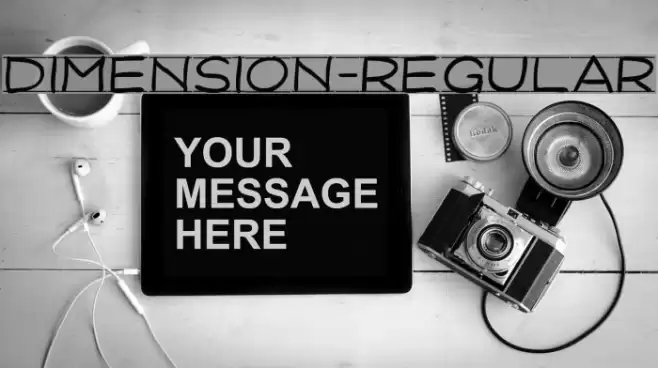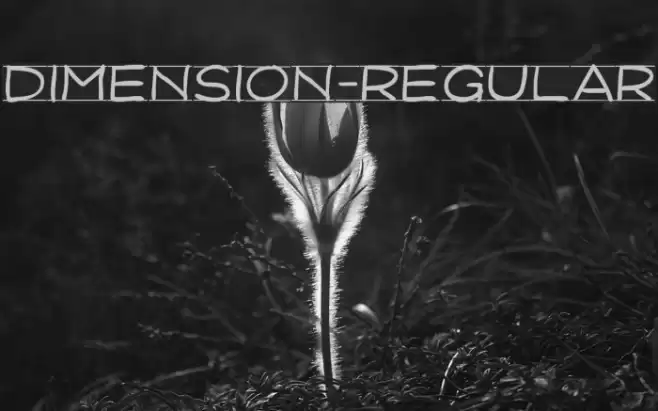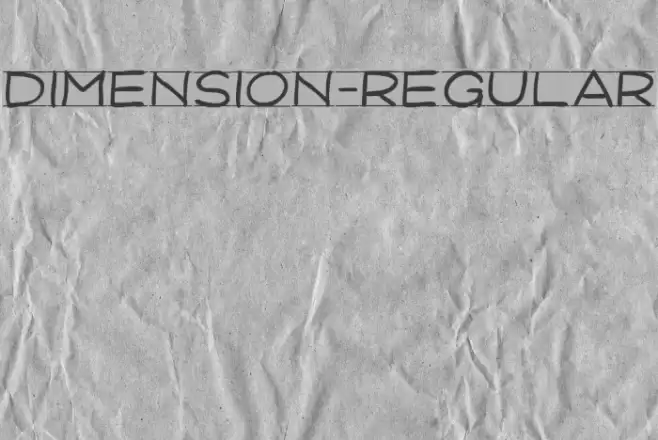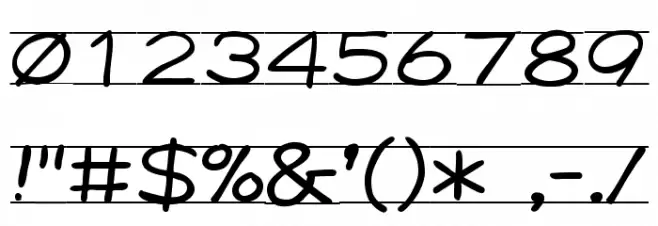
Dimension-Regular Font
Dimension-Regular Description
This font features a unique and artistic style with a hand-drawn appearance. The characters are slightly irregular, giving them a playful and informal look. The uppercase letters are bold and prominent, while the lowercase letters maintain a consistent style. The numbers are clear and easy to read, with a similar hand-drawn effect. Special characters are included, maintaining the same artistic flair. The overall design is creative and stands out, making it suitable for projects that require a distinctive and personal touch.
A hand-drawn, artistic font with a playful and informal style from Uncategorized fonts.
- Proposed Projects: Ideal for creative projects, children's books, casual branding, and artistic posters.
- Use Case: Logos, Posters, Creative projects